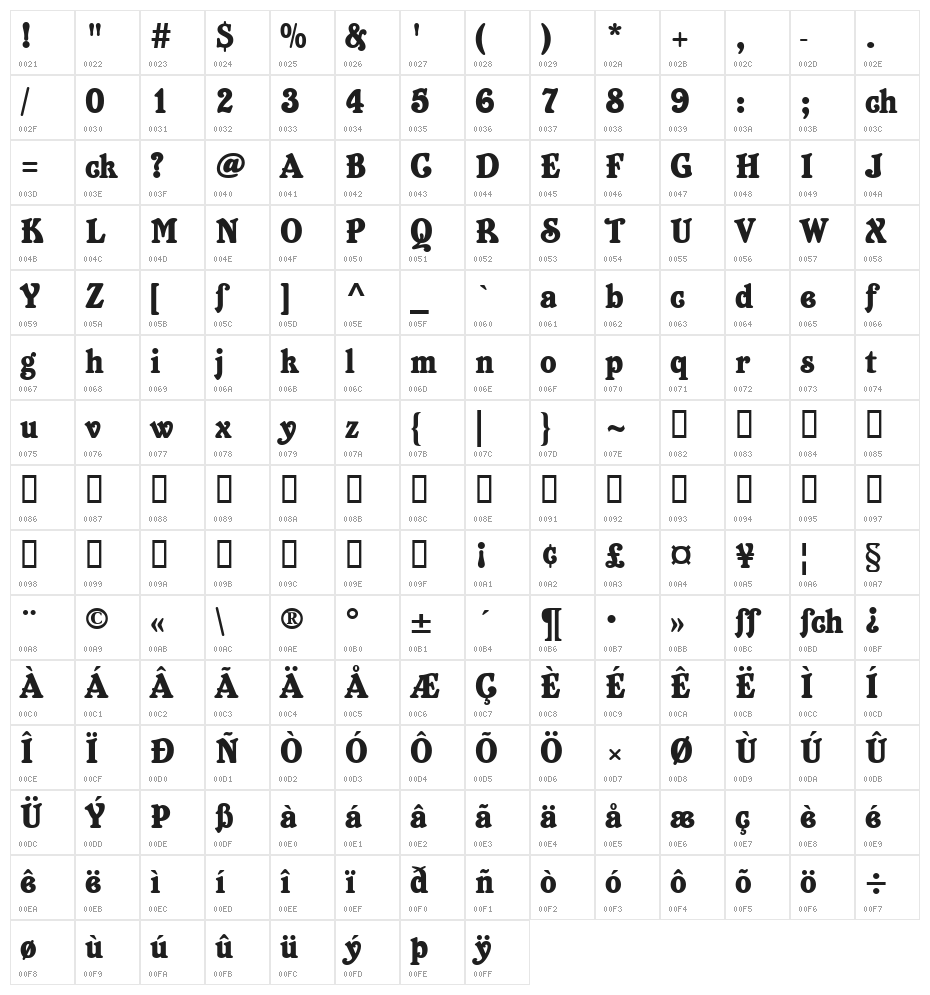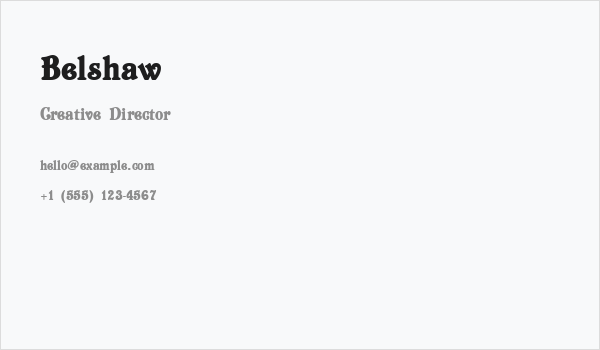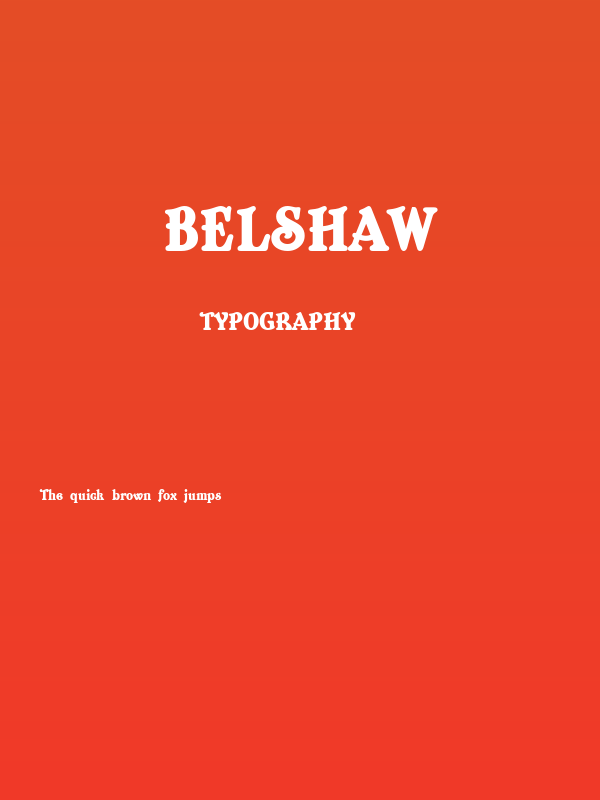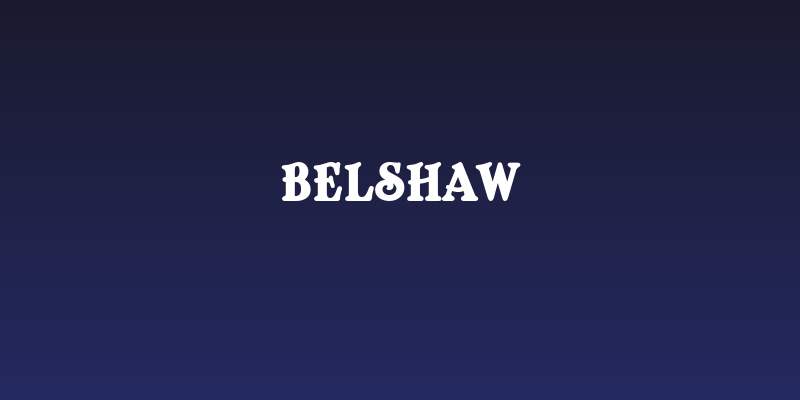
Belshaw Font
Belshaw Description
This font features a bold and robust design, characterized by thick, rounded serifs and a strong presence. The uppercase letters are uniform in height, with a slight curvature that adds a playful yet authoritative feel. Lowercase letters maintain a consistent weight, ensuring readability while preserving the font's unique style. The numerals are equally bold, with a consistent width that complements the overall design. Special characters are crafted with the same attention to detail, making them stand out without overpowering the text. This font's distinct style makes it suitable for a variety of creative applications.
Proposed ProjectsIdeal for branding, headlines, posters, and packaging design where a bold statement is needed.